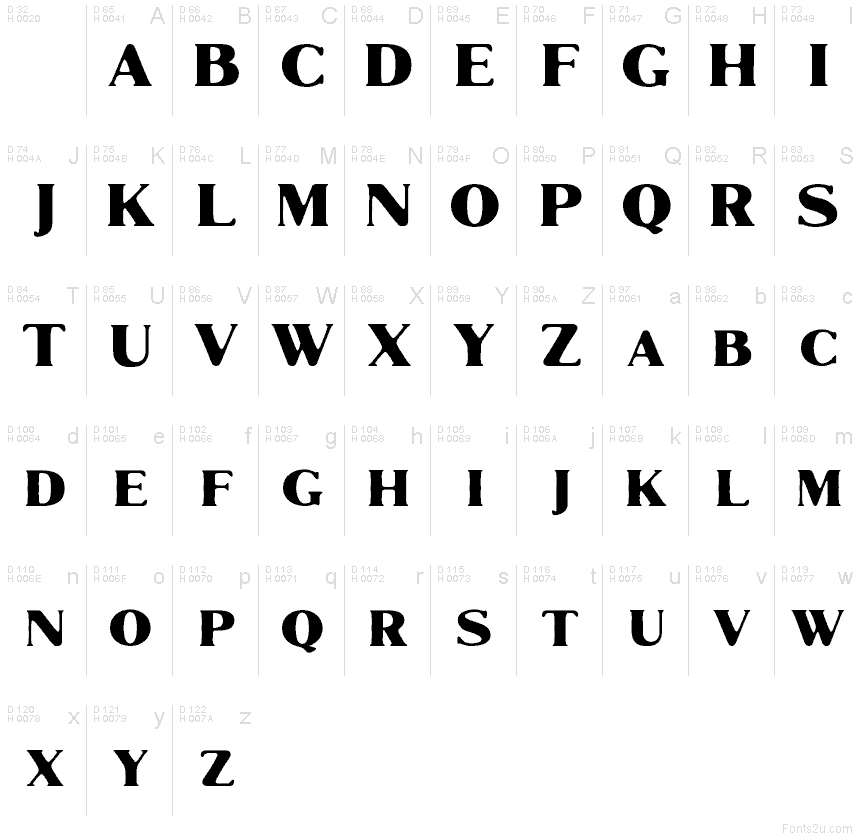
MarquesRoundedDrawn-Regular Demo
Marques Rounded Drawn font by Craft Supply Co. is a bold serif typeface with a strong presence and timeless appeal. Its elegant style and classic influences give it an authoritative feel, making it perfect for important designs with long lasting impacts.
Marques Rounded Drawn Demo